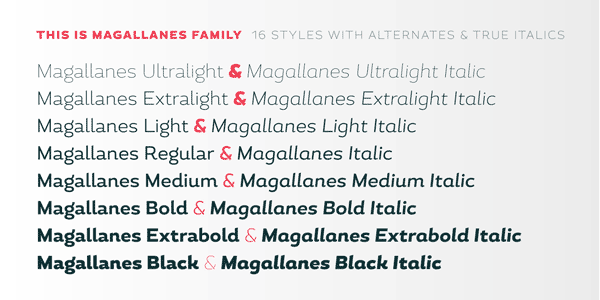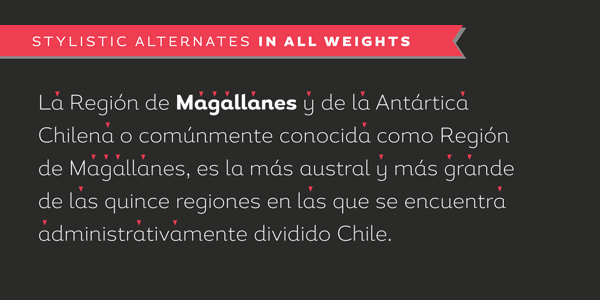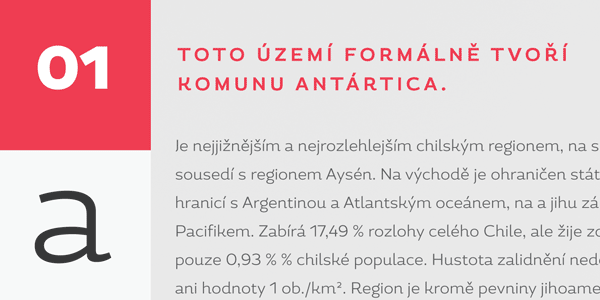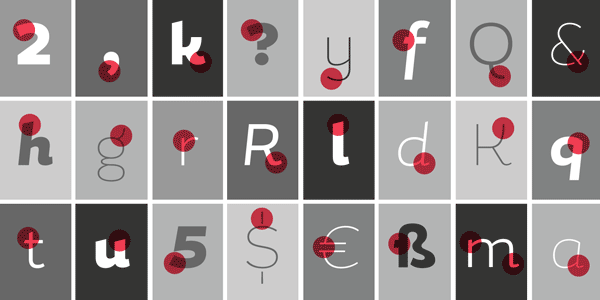
Magallanes Font Family.
Magallanes is a stylish neo-humanist sans serif font family created in 2012 by type designer Daniel Hernández (Font Publisher: Latinotype). Magallanes’ typeface is related to the calligraphic strokes and terminals of typical humanist typefaces. The complete family includes 8 styles plus italics. The weights ranging from Ultra Light to Black and every weight has alternative glyphs, which provide a very dynamic use. Magallanes is a great display font that works very well for headlines and titles. The font family supports Basic Latin, Western European, Euro, Catalan, Baltic, Turkish, Central European, Romanian, and Pan African Latin languages.